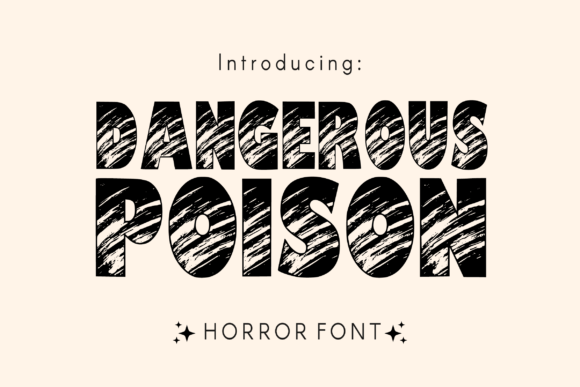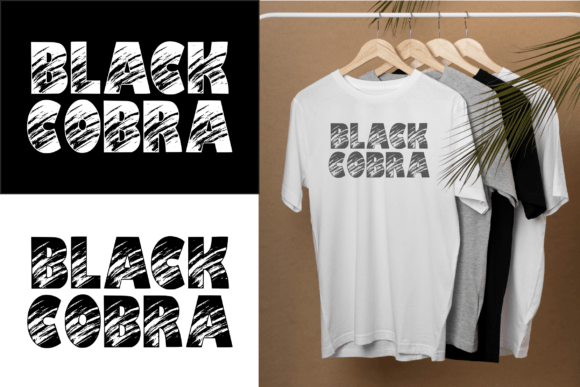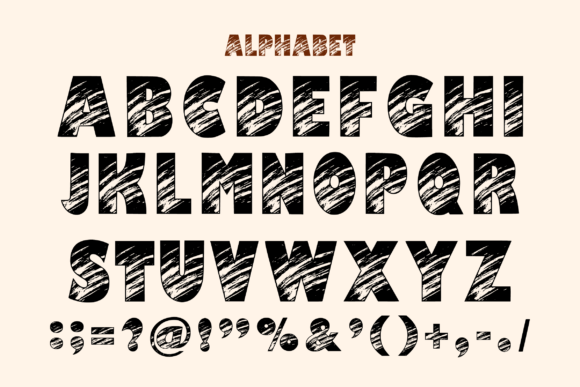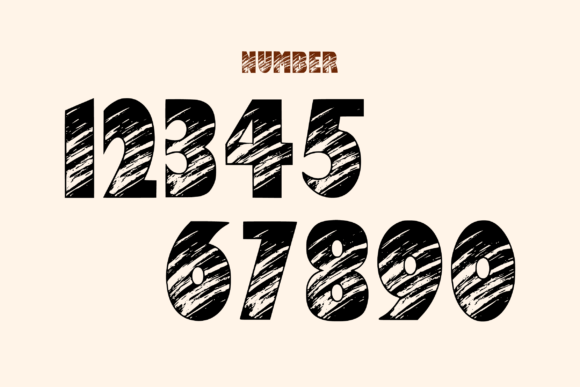
Unveiling the Spine-Chilling Allure of BLACK COBRA Font
As a designer, I’ve had my fair share of late nights scouring the internet for the perfect font to bring a client’s vision to life. But one project still haunts me – a horror-themed t-shirt design that required a font that could evoke the eerie and terrifying. That’s when I stumbled upon the BLACK COBRA font, and it was love at first sight! 💀
The BLACK COBRA font is a masterful blend of horror and grunge elements, with a unique shadowy style that immediately caught my attention. Each character is carefully crafted with distinctive strokes that seem to whisper eerie tales, making it perfect for bringing out the element of fear in any design.
What I Love About BLACK COBRA Font
- ✨ Unique Shadowy Style: The font’s shadowy style adds a level of depth and dimension to any design, making it perfect for horror-themed projects.
- ✅ Versatility: BLACK COBRA can be used for a range of creative endeavors, from screen printing on t-shirts to designing eye-catching posters.
- 🔥 Eerie and Terrifying: The font’s distinctive strokes evoke a sense of eeriness, making it perfect for horror-themed projects.
- 💻 Digital Design Needs: Whether you’re a designer, crafter, or creative hobbyist, BLACK COBRA is an excellent choice for any digital design project.
Honest Review: The Not-Perfect-but-Almost-Perfect Font
While BLACK COBRA is an exceptional font, it’s not without its quirks. Here are a few things to keep in mind:
- 🤔 Limited Ligatures: Some users may find the limited ligatures a bit restrictive, but this doesn’t detract from the font’s overall versatility.
- ⚠️ Not Suitable for Body Text: Due to its bold and shadowy style, BLACK COBRA is best used for headlines or titles, rather than body text.
The Backstory Behind BLACK COBRA Font
The BLACK COBRA font was created by a talented designer who’s passionate about typography and horror themes. The designer’s inspiration came from classic horror movies, haunted houses, and creepy crawlies. The result is a font that’s both terrifying and mesmerizing.
| What type of projects is BLACK COBRA best suited for? | BLACK COBRA is perfect for horror-themed projects, such as t-shirt designs, posters, stickers, and more. |
| Is BLACK COBRA available in different styles or weights? | Currently, BLACK COBRA is available in a single style. However, the designer may release additional styles or weights in the future. |